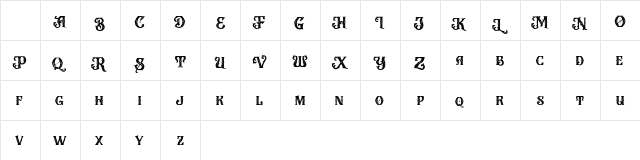
Vanguard FREE is a composed and adaptable typeface that performs quietly and consistently across a wide range of design contexts.
Pro Tip: Use Vanguard FREE in both headline and body roles to test its range before committing to a single application.